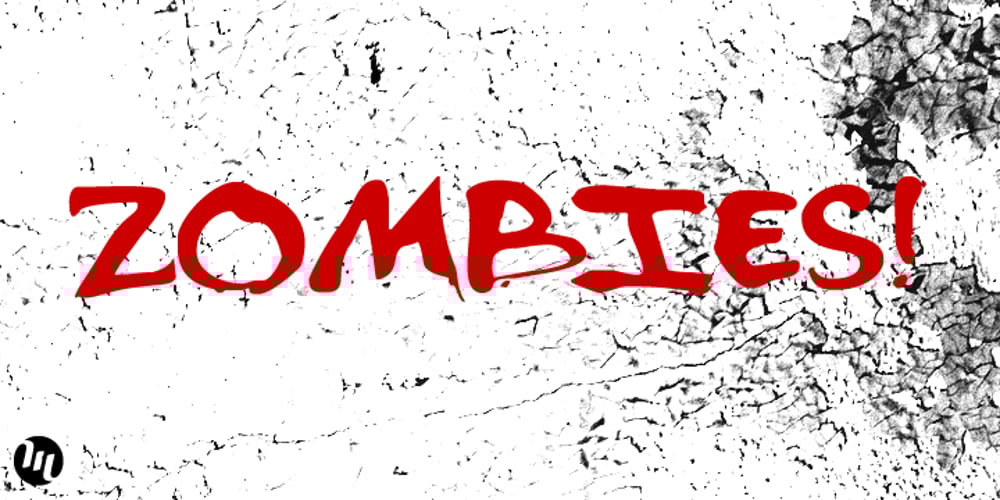
Ghouliez Font Family was designed by Matthew Aaron Desmond and published by MADType. Ghouliez contains 1 styles and family package options. This face was drawn on paper with a calligraphy pen and way too much ink. It’s perfect for that spooky globular look.